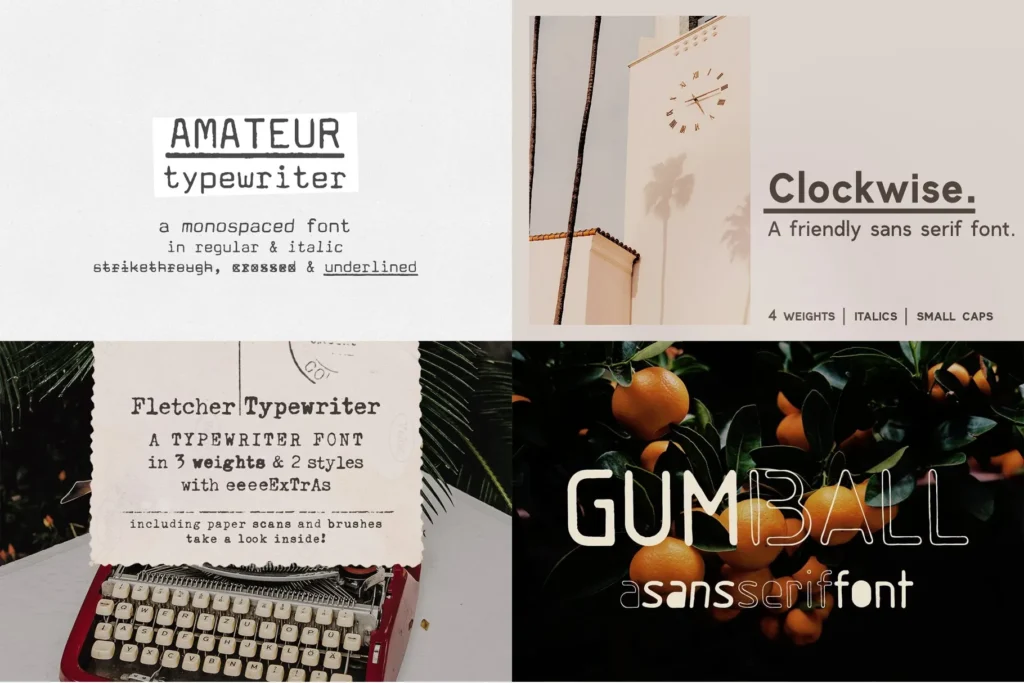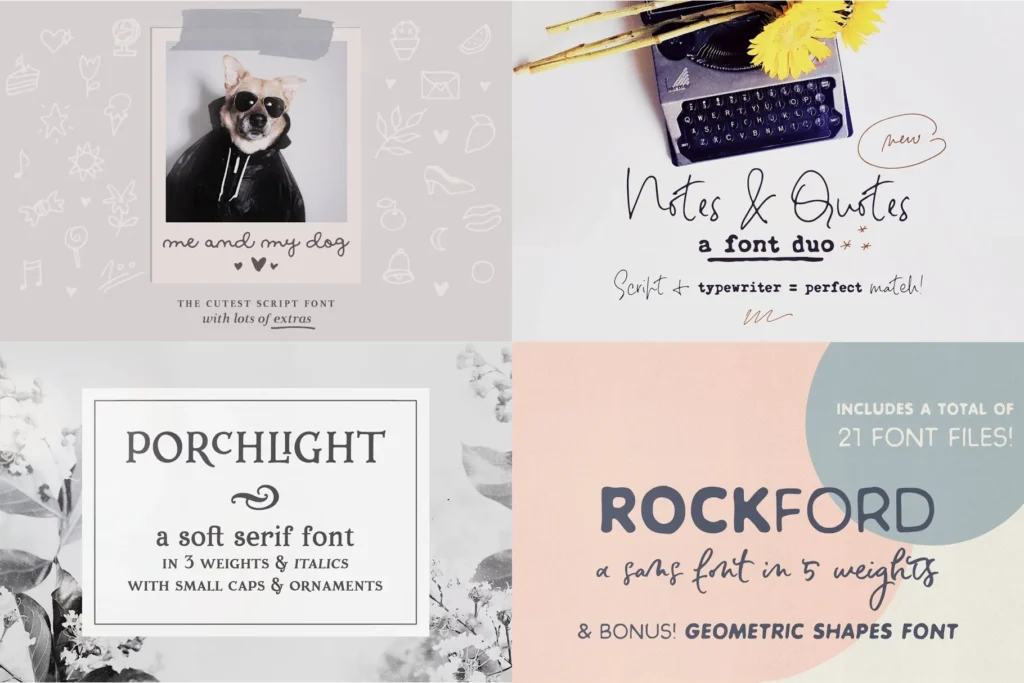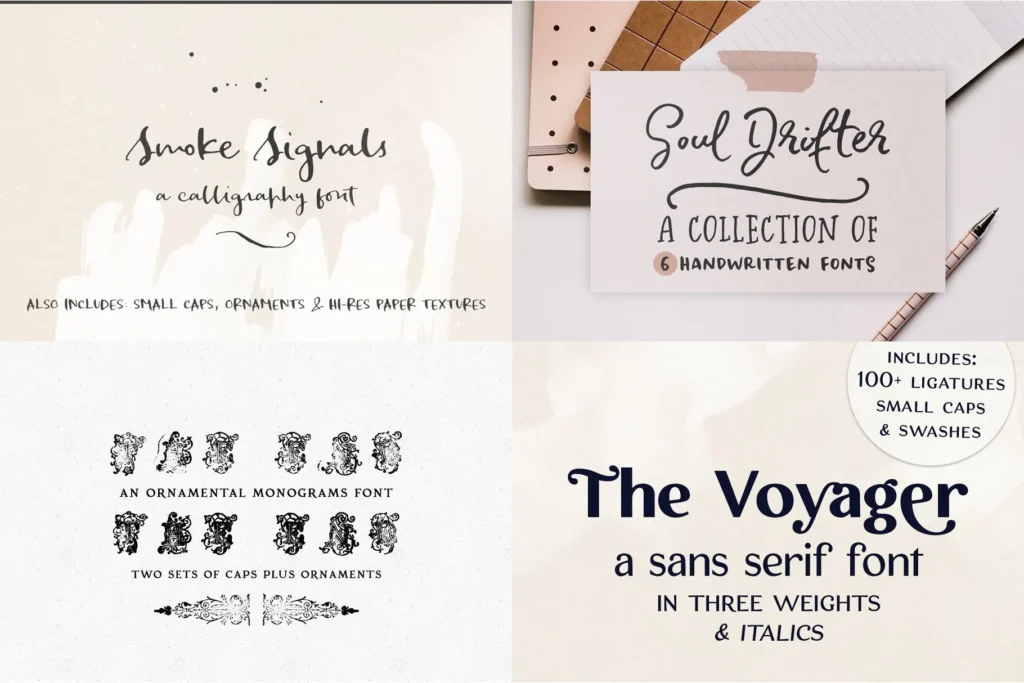
This
Font Collection
includes 12 typefaces from
spanning different font styles (from serif to sans, to handwritten, to typewriter), at a very special price!
Included in this bundle:
Amateur Typewriter monospaced font
Clockwise sans serif font
Fletcher Typewriter font & extras
Gumball sans serif font
Me and my dog script font
Notes And Quotes font duo
Porchlight classic serif font
Rockford sans serif font
Smoke Signals script font and extras
Soul Drifter handwritten font
The End ornate monogram font
The Voyager display font